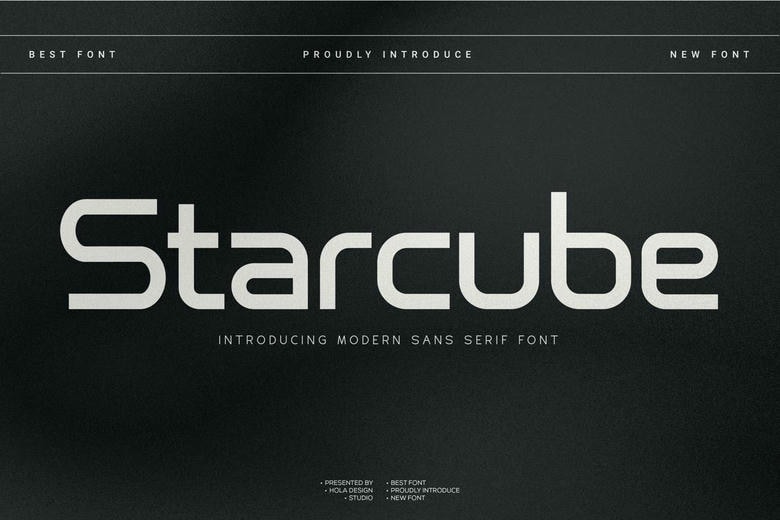
Starcube Font
Starcube is a good quality sans serif font which was designed by holadesignstd and can be downloaded freely and used by the individual. The font suits any branding works, Logo designing, Branding on a piece of clothing, product packaging, headings on magazines or just a beautiful text overlay to any background image.
Starcube Sans Serif Font